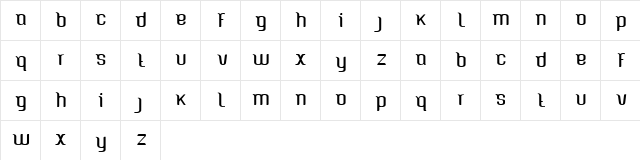
Caspian Sea Tracked Regular
| Designer | Mahir Huseynov |
Design Context for Caspian Sea Tracked Typeface
Caspian Sea Tracked is a composed and adaptable typeface that performs quietly and consistently across a wide range of design contexts.